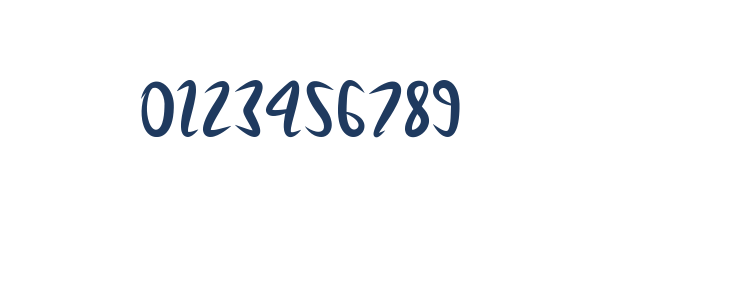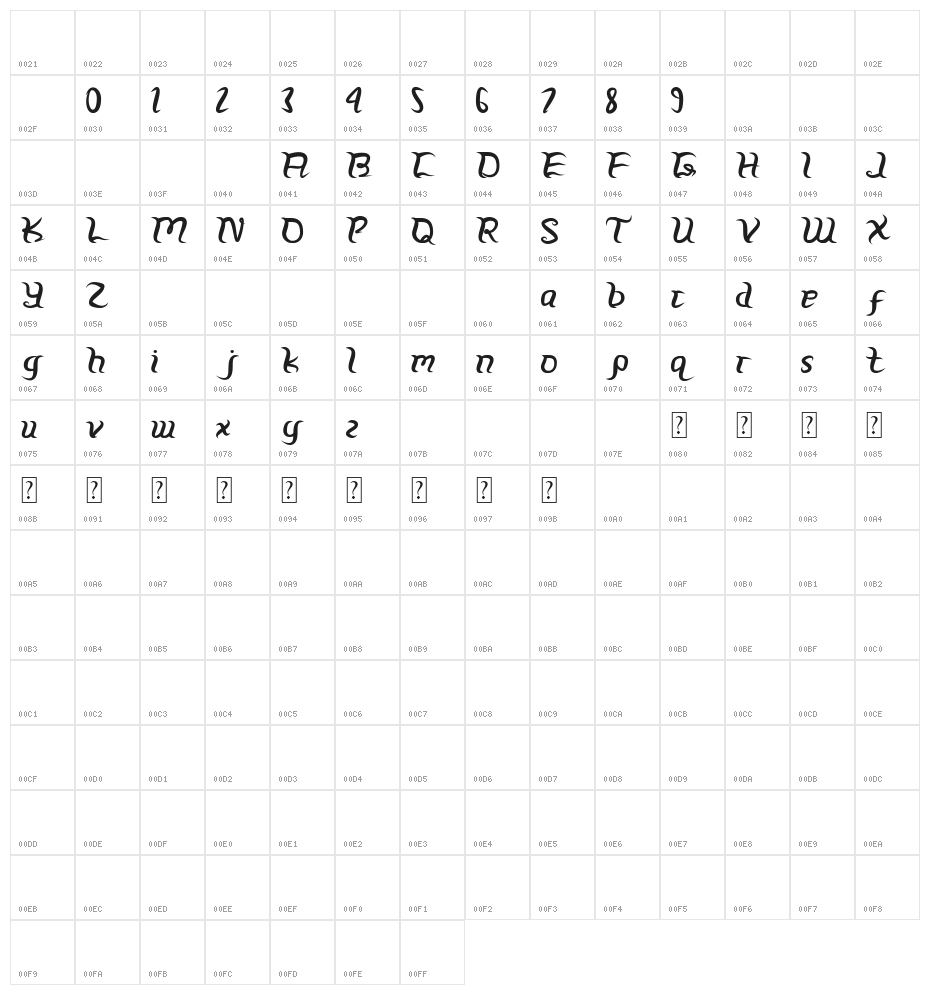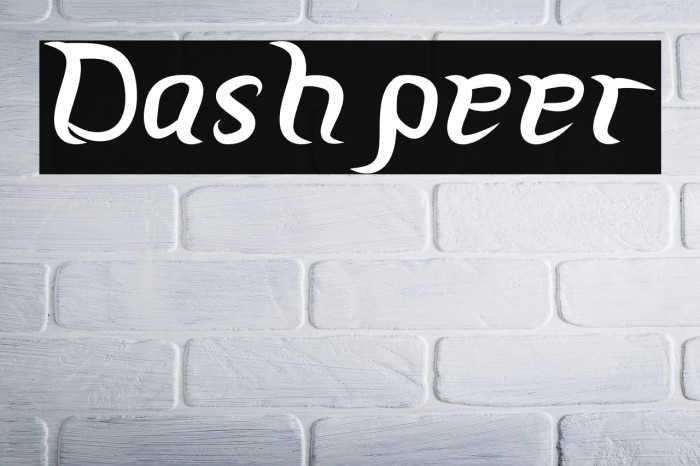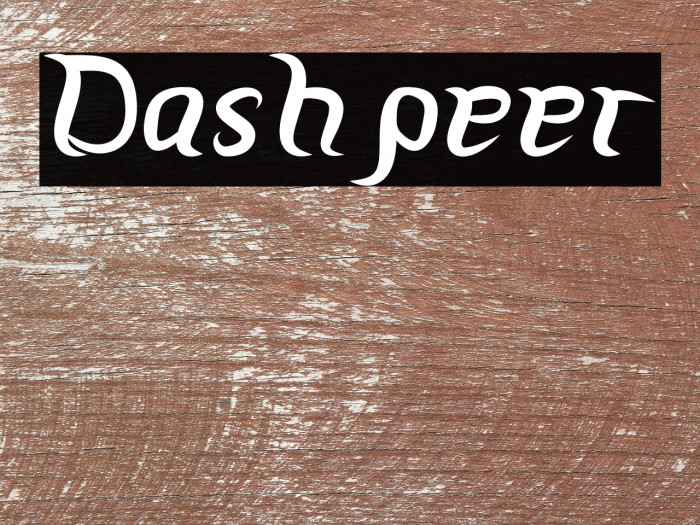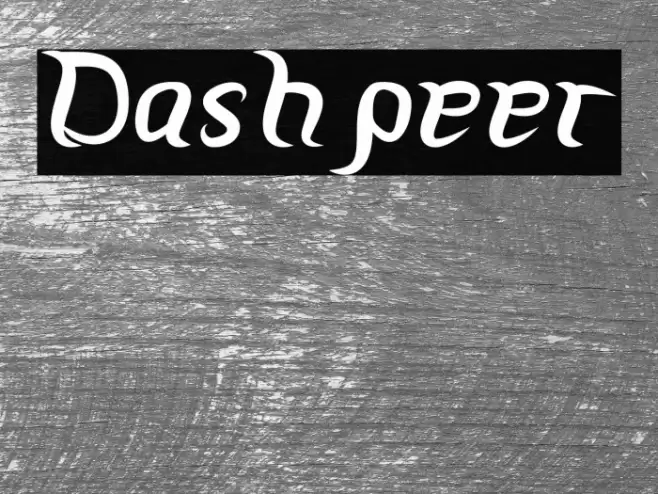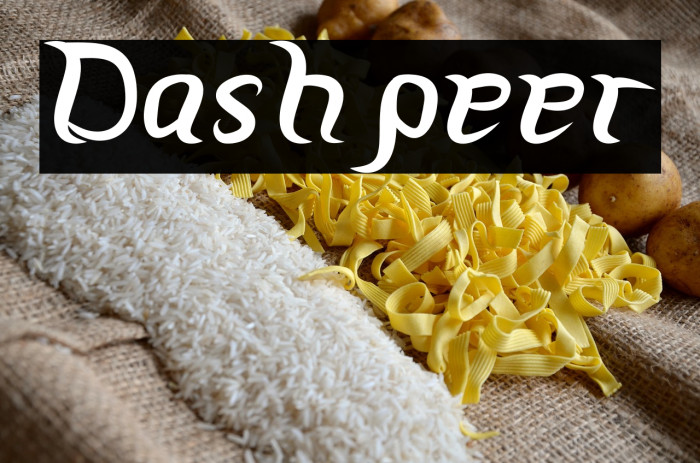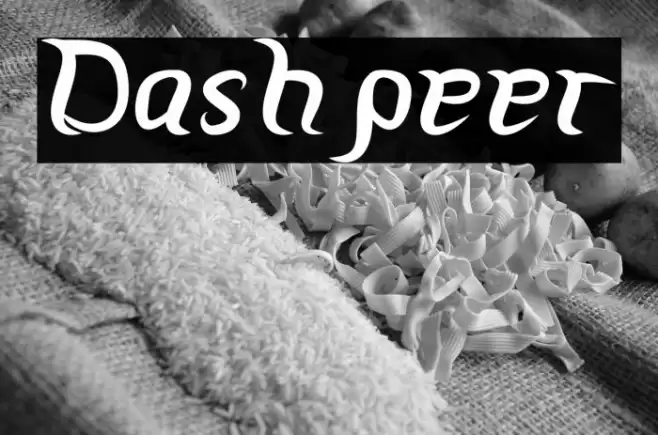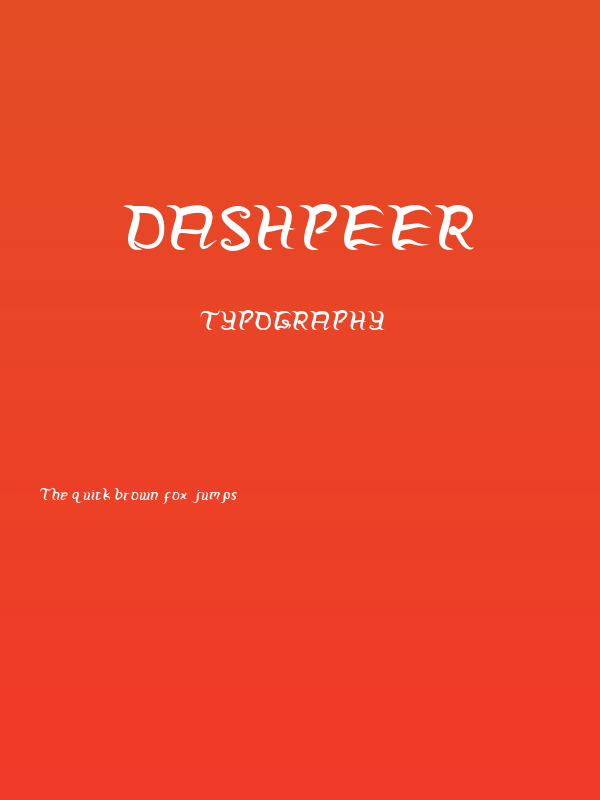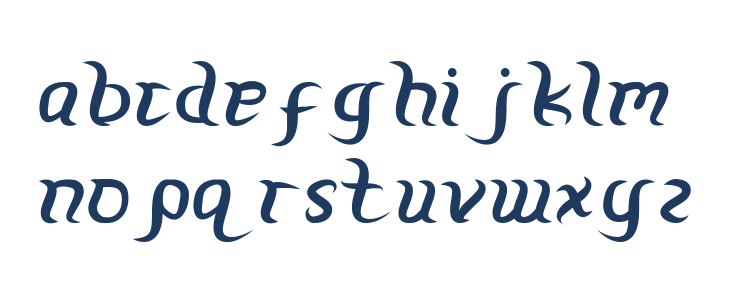
Dashpeer Font
Dashpeer Description
This font features a unique blend of calligraphic and modern elements, characterized by its flowing, cursive-like strokes and sharp, angular edges. The uppercase letters exhibit a dynamic and bold presence, while the lowercase letters maintain a consistent fluidity, enhancing readability. The numerals are distinct and maintain the same stylistic flair, making them stand out. The special characters are crafted with the same attention to detail, ensuring a cohesive look across all glyphs. This font's overall aesthetic is both elegant and assertive, making it suitable for a variety of creative applications.